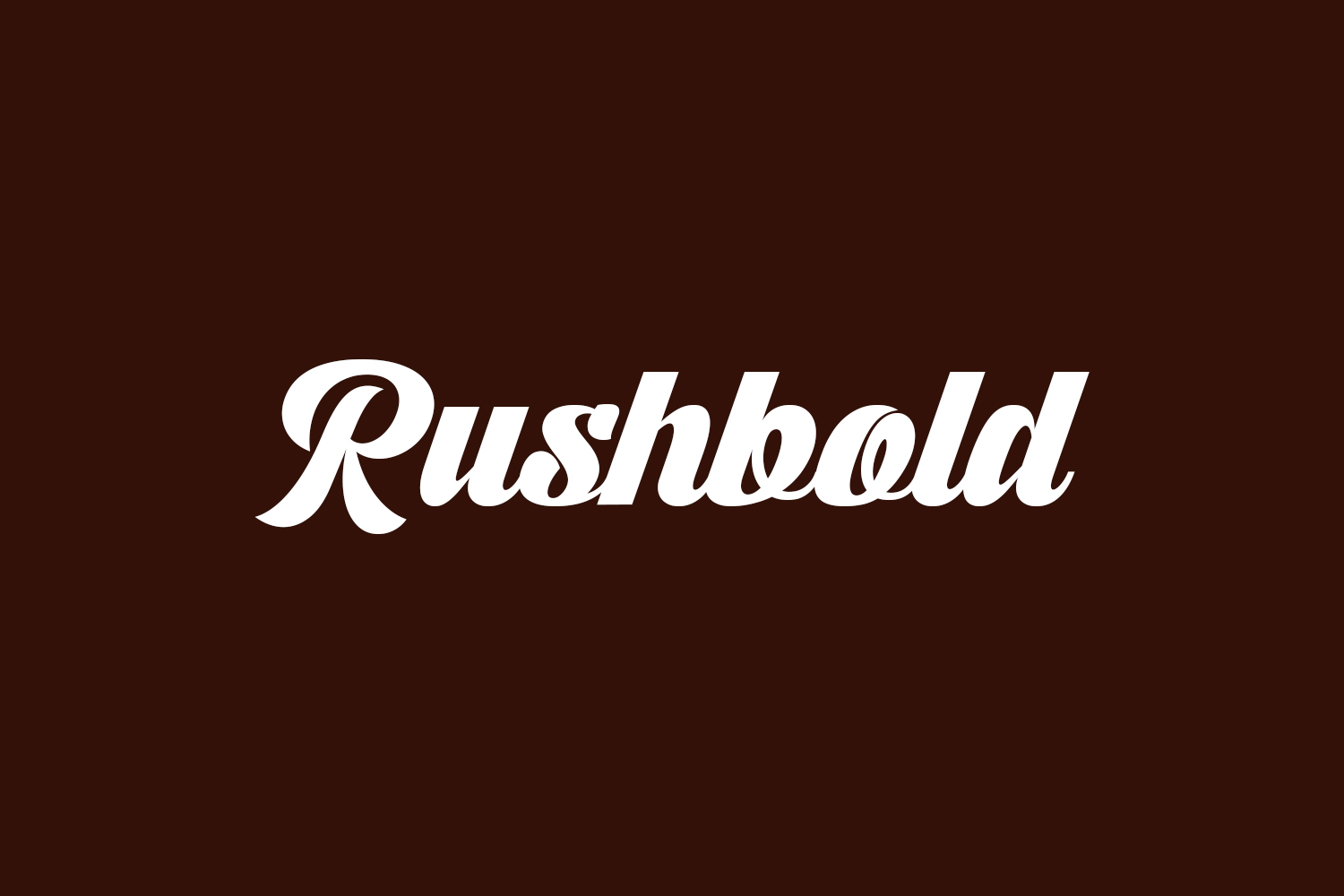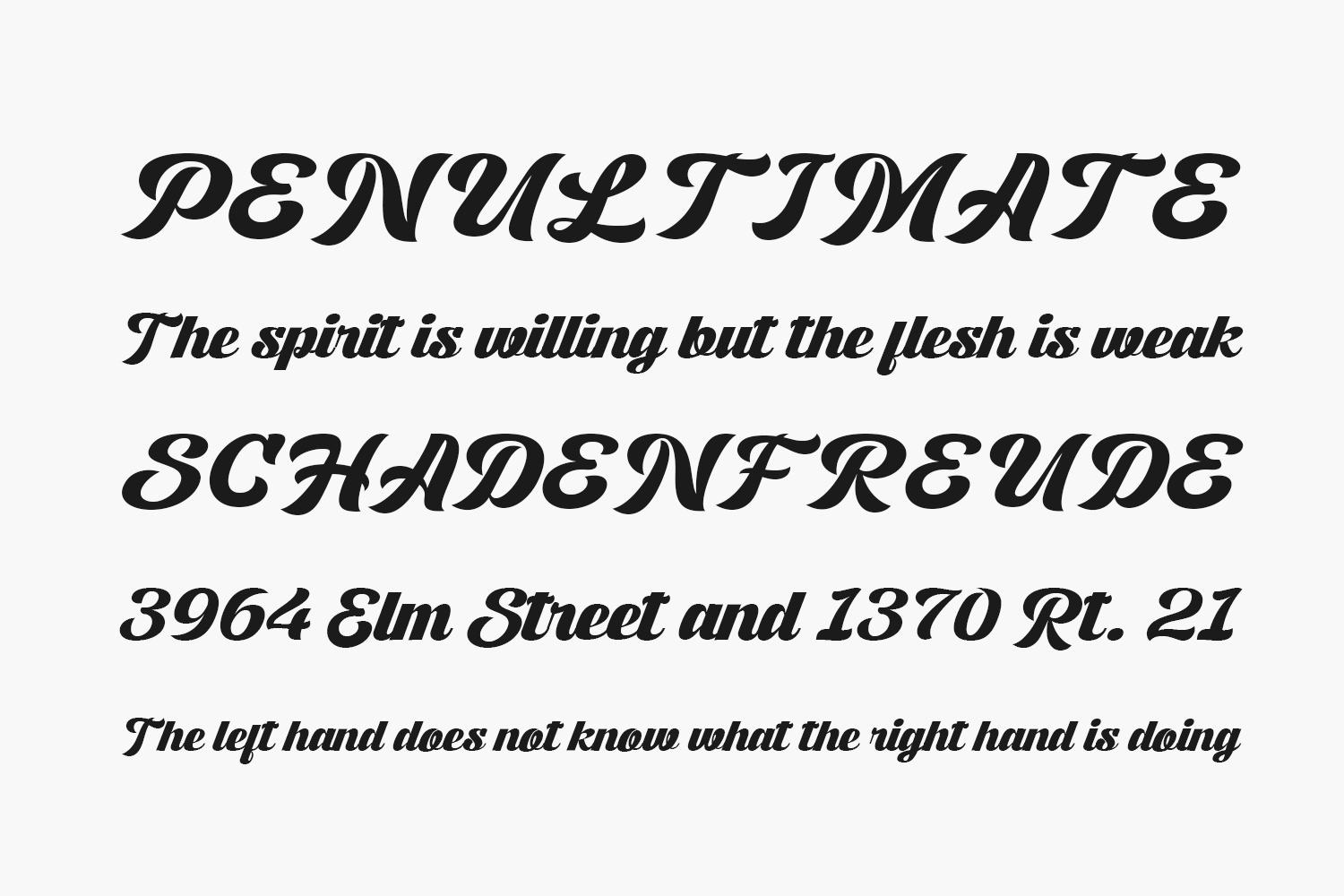
Introducing Rushbold Free Font, an exquisite and daring handwritten font meticulously crafted to add a touch of vintage flair to your headlines and logotype projects. Elevate your designs with the captivating beauty of Rushbold and embrace the timeless charm of retro aesthetics. Rushbold Free Font is free for personal use only. Please purchase the full version for commercial use.
Designed by Sign Studio